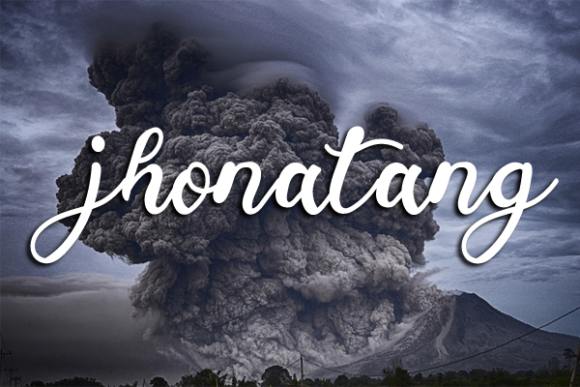
Behold Jhonatang, an exquisite handwritten font that will captivate you with its romantic allure. Immerse yourself in the world of delicate strokes and flowing curves that evoke the essence of love and passion. With Jhonatang, transform your creative projects into captivating expressions of the heart.
Let Jhonatang guide you through mesmerizing typography adventures. Its versatility knows no bounds, from heartfelt greeting cards to bold headlines, adding a touch of charm and sophistication to every design. Unleash your imagination and create designs that whisper tales of love and leave a lasting impression.
Step into a world where beauty and emotion collide. Jhonatang's script font is meticulously crafted to ignite passion in every letter. Its elegant lines dance across your designs, captivating your audience and drawing them into a world of pure artistic bliss. Each character is a testament to love's enduring power, alluring and mesmerizing in equal measure.
Embrace Jhonatang and watch your creative visions come alive. Whether you're a seasoned designer or just starting your journey, Jhonatang will be your steadfast companion, guiding you toward excellence. Its user-friendly nature ensures that every design becomes a masterpiece, reflecting your artistic prowess.
So, surrender to the allure of Jhonatang and embark on a creative expedition that will leave you breathless. Allow your designs to blossom with Jhonatang's romantic charm, and let your projects become a symphony of visual delight. Dive into the world of Jhonatang and let your imagination soar.